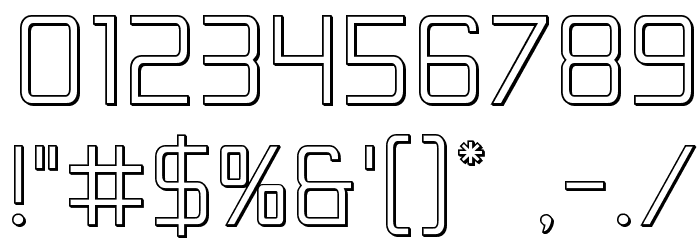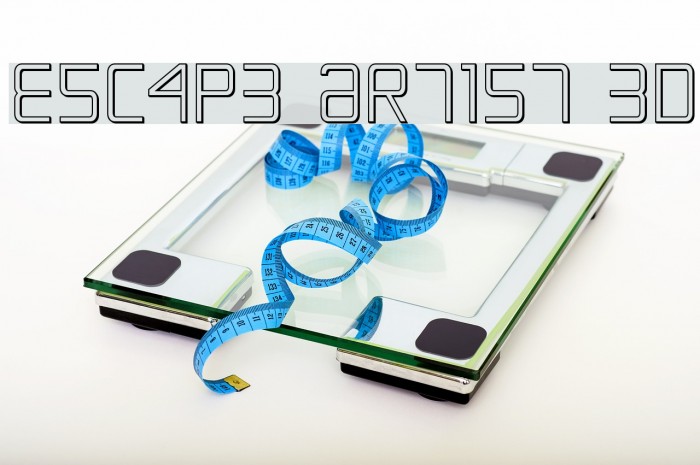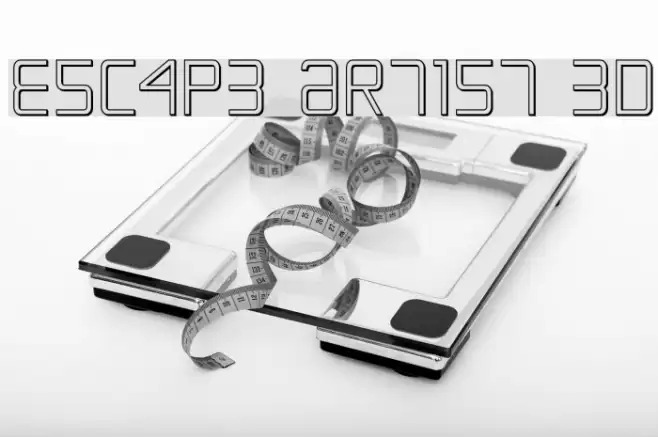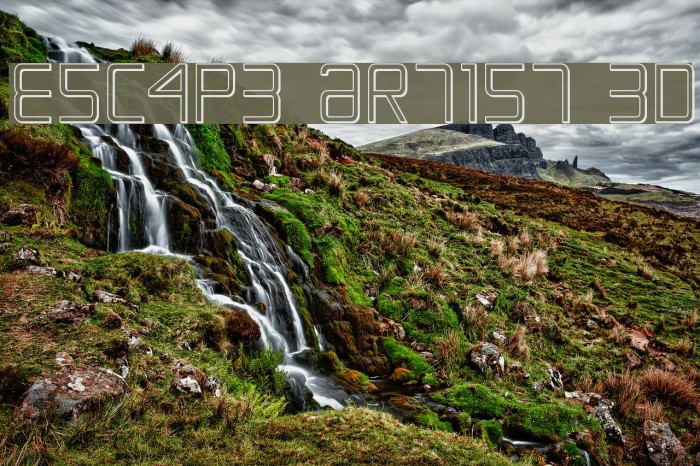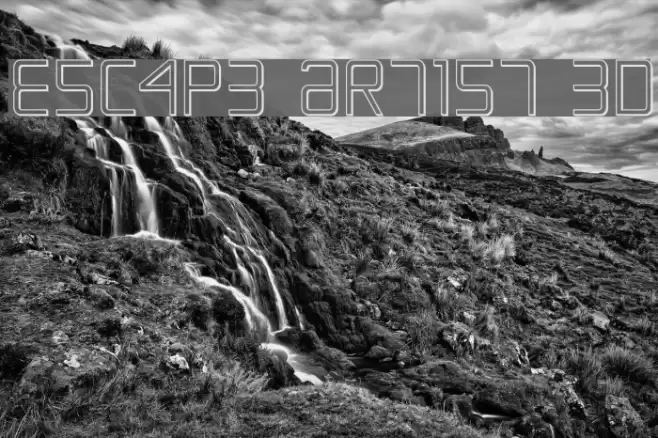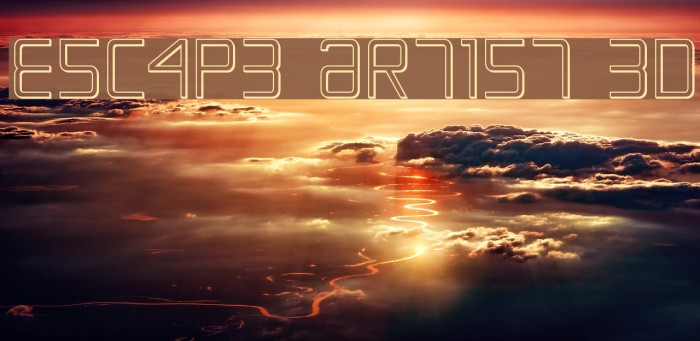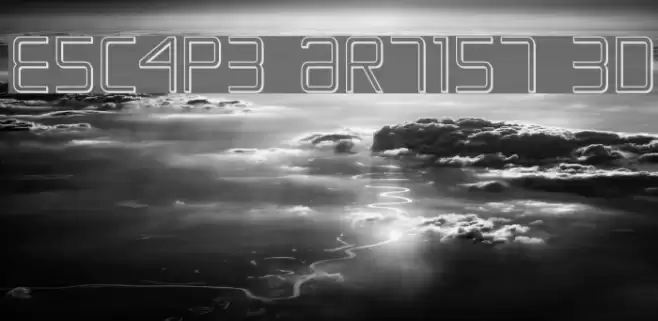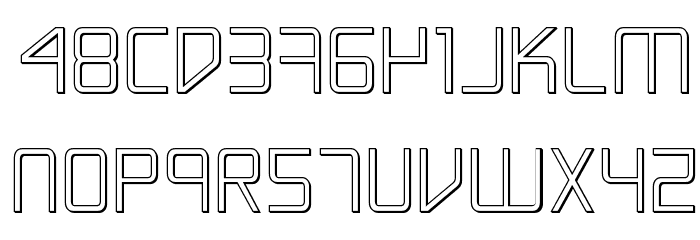
Escape Artist 3D Font
Escape Artist 3D Description
This font features a geometric, three-dimensional design with a hollow, outlined structure. Each character is crafted with precision, giving a futuristic and technical appearance. The letters and numbers are uniform in height, with consistent line thickness throughout. The angular and linear style creates a sense of depth and modernity, making it suitable for digital and tech-related projects. The special characters maintain the same structural integrity, ensuring a cohesive look across all symbols.
| Proposed Projects | Ideal for digital interfaces, tech branding, video game titles, and futuristic design projects. |